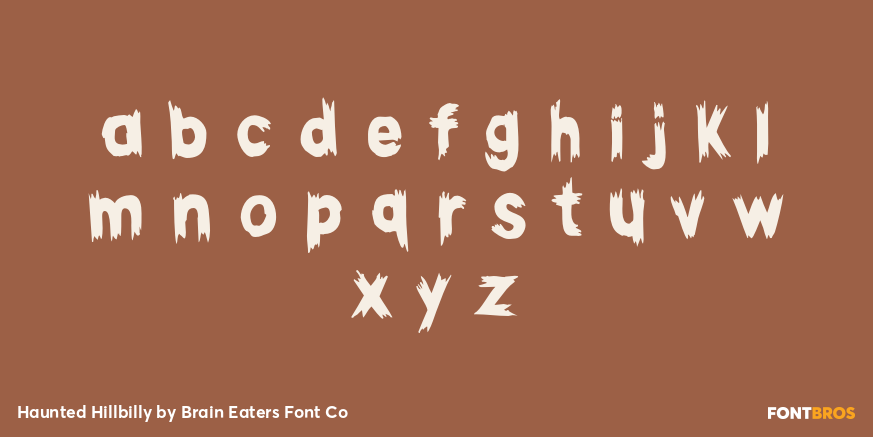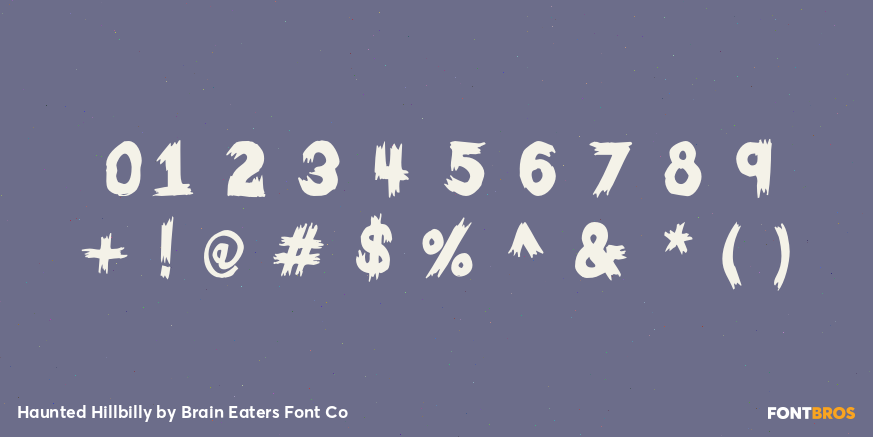
Haunted Hillbilly
Font Family by Brain Eaters Font Co
Haunted Hillbilly is a distressed display font family with a rough, offbeat personality that feels spooky, playful, and a little unruly. Its worn texture gives headlines and short phrases a handmade, weathered look, while the overall style leans into fun, wacky display work rather than polished formality.
This family includes 2 styles—Haunted Hillbilly Solid and Haunted Hillbilly Outline—giving you a couple of ways to build layered, attention-grabbing type. It’s a strong fit for posters, themed graphics, Halloween projects, novelty packaging, signage, apparel, and other decorative work where a distressed look helps set the mood.
Created by Brain Eaters Font Co, this is a characterful choice for designs that need a scruffy, haunted edge without losing a sense of fun.